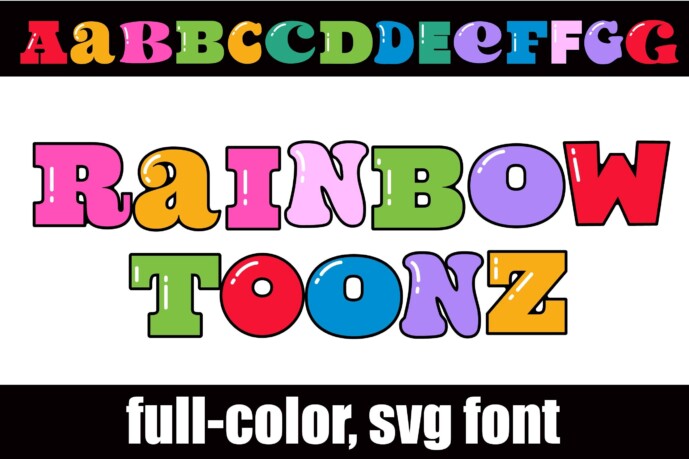
Rainbow Toonz Font
Designer: Illustration Ink
This full-color font features a retro style, serif font in a rainbow color palette. There is an alt case of additional colors of each letter that you can access through your system or Silhouette’s glyph map.